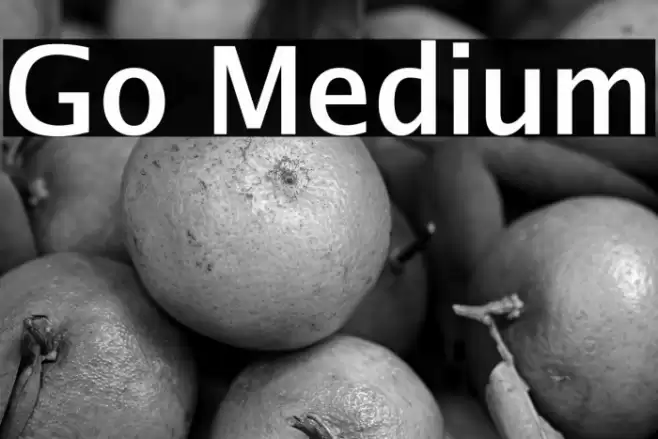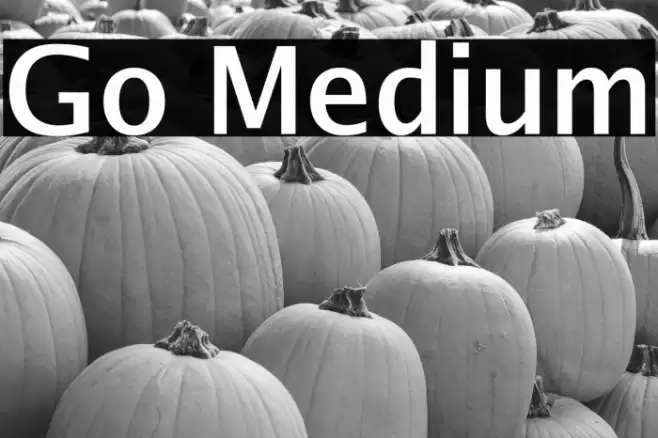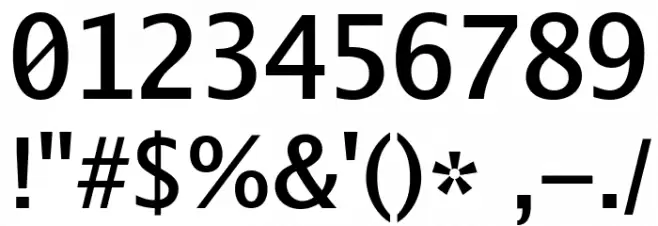
Go Medium Font
Go Medium Description
This font features a clean and modern sans-serif design, characterized by its uniform stroke width and geometric shapes. The uppercase letters are bold and assertive, while the lowercase letters maintain a consistent height, providing a balanced and harmonious appearance. The numerals are clear and easily distinguishable, making them suitable for various applications. Special characters are well-defined, enhancing the font's versatility. The overall design is straightforward yet sophisticated, making it ideal for both digital and print media.
A modern, geometric sans-serif font with uniform stroke width from Sans Serif fonts.